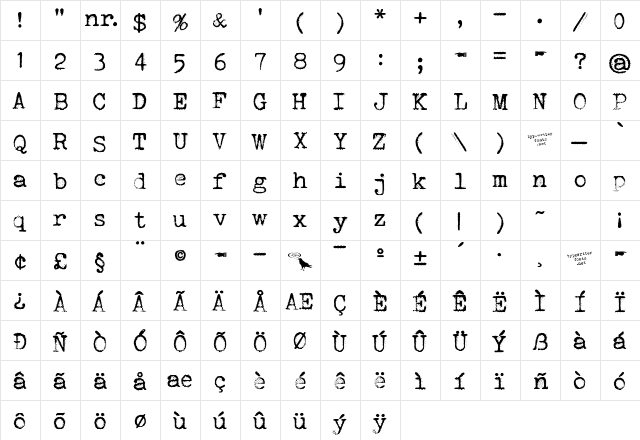
Orange Typewriter Normal
| Designer | Lukas Krakora |
Design Context for Orange Typewriter Typeface
Orange Typewriter uses fixed-width spacing throughout, giving it the structured, systematic character associated with coding environments and technical documentation.
Well-suited to data-driven dashboards, coding tutorials, and any design that wants to reference the world of programming.